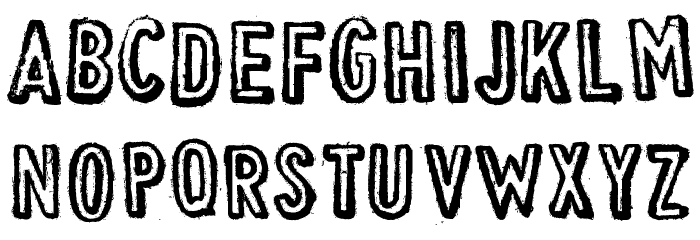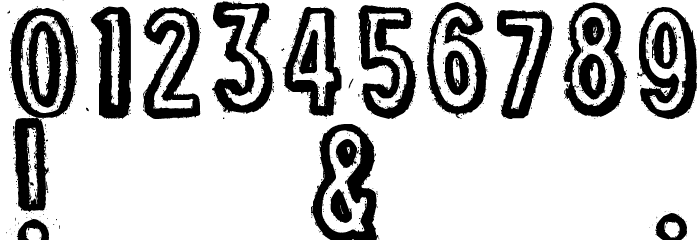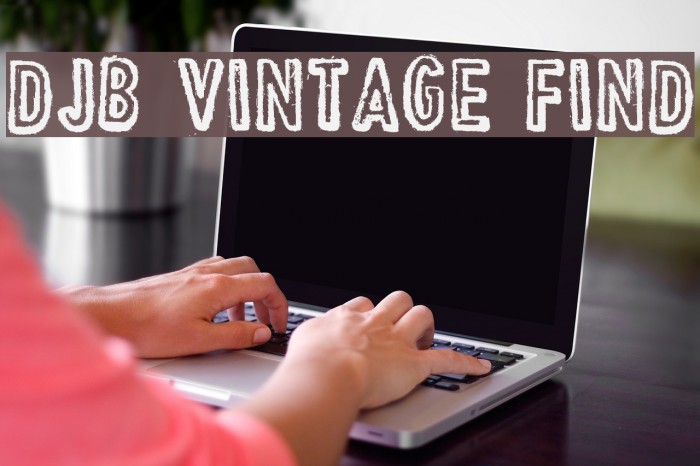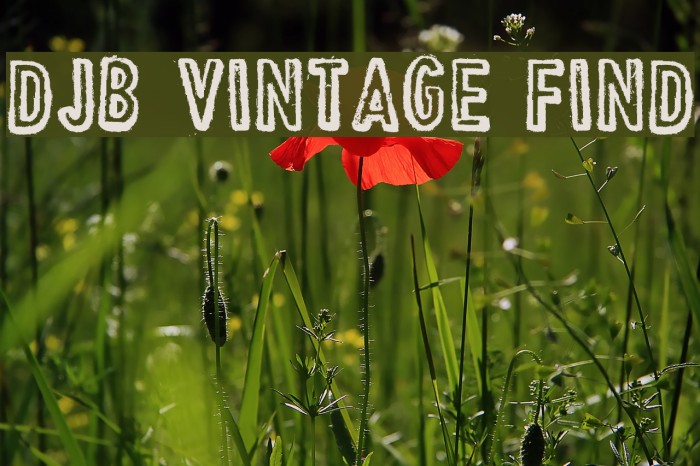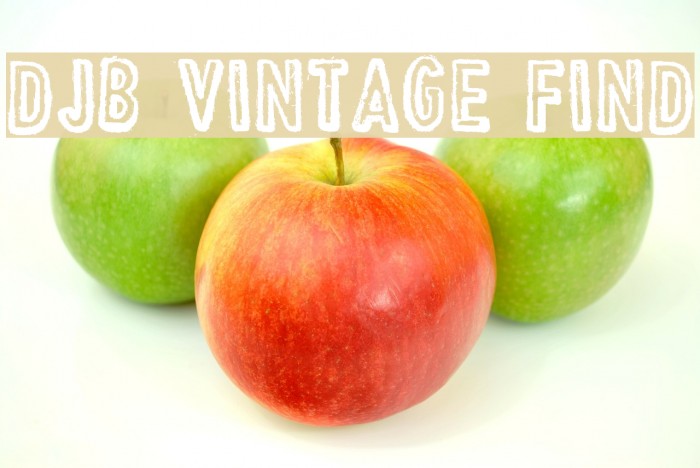
DJB Vintage Find Font
This font features a bold, hand-drawn style with a vintage flair. Each character is outlined with a slightly rough, textured edge, giving it a worn, retro appearance. The uppercase and lowercase letters maintain a consistent height, contributing to a uniform look. The numbers and special characters follow the same design, ensuring a cohesive feel across all elements. The font's playful yet classic style makes it versatile for various creative projects.
A bold, hand-drawn font with a vintage, textured style.
- Proposed Projects: Ideal for retro-themed designs, posters, branding, and packaging that require a nostalgic touch.
- Overall Style: Vintage